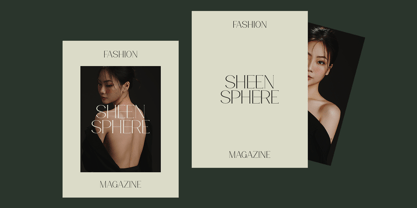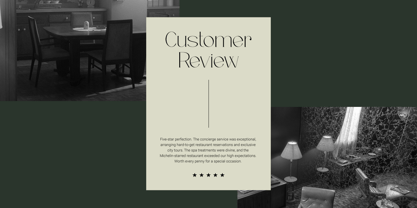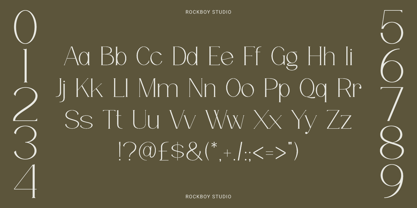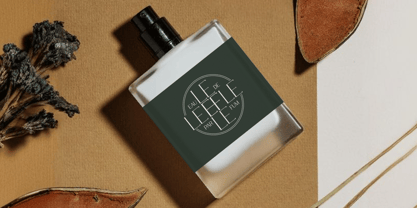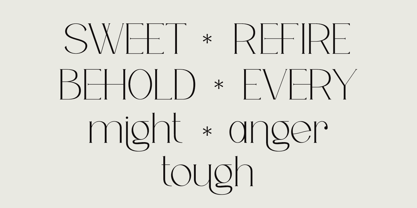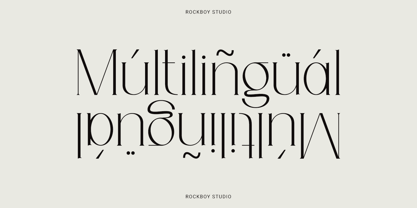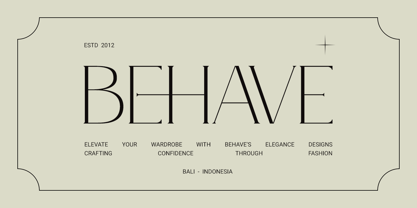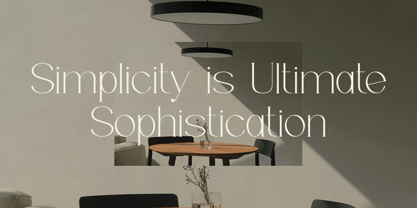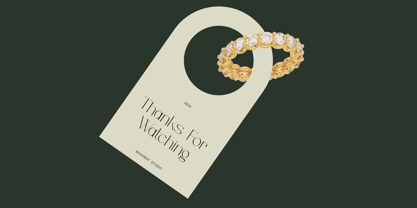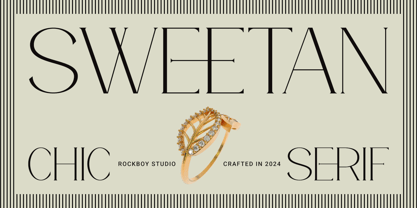
Sweetan
by Rockboys Studio
The Sweetan Font Family was designed by Hayinah and published by Rockboys Studio. Sweetan contains 1 styles. More about this family
Sweetan is an elegant and distinct serif font. Suitable for a wide variety of designs due to its neat and simple style, this font has the potential to become your favorite go-to font, no matter the occasion!
Designers: Hayinah Hayinah
Foundry: Rockboys Studio